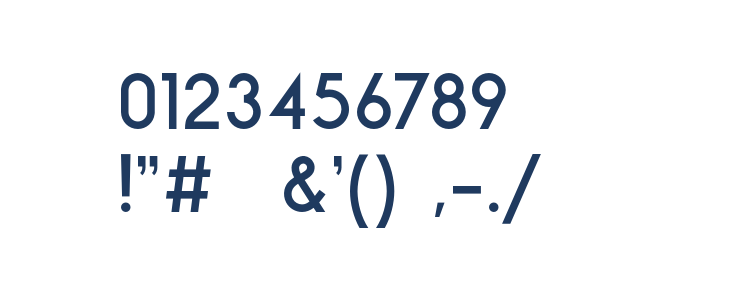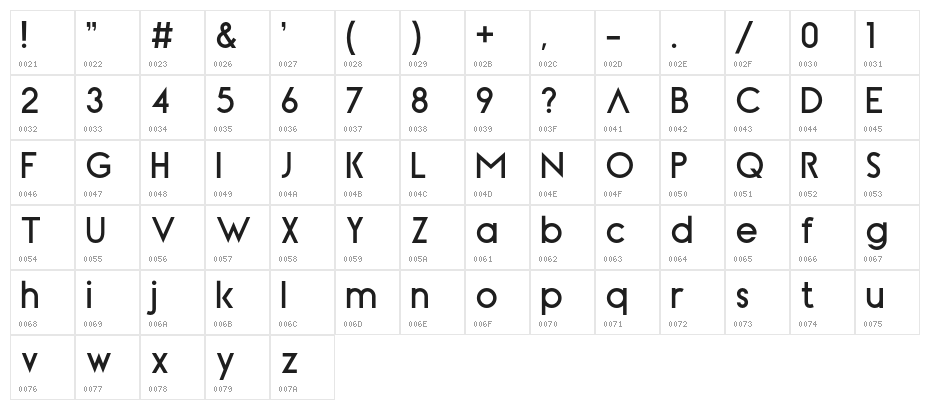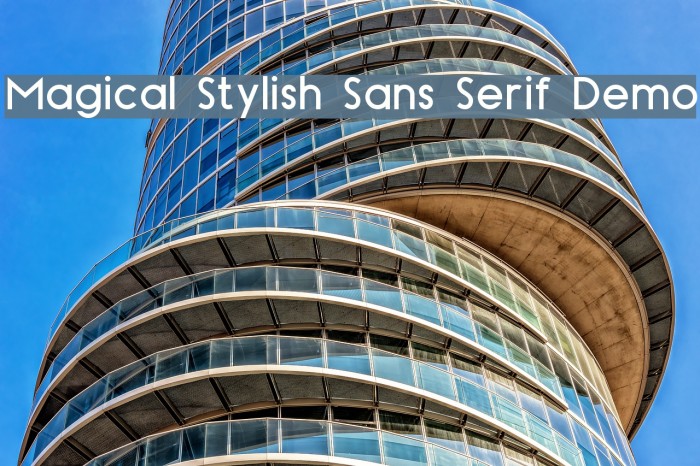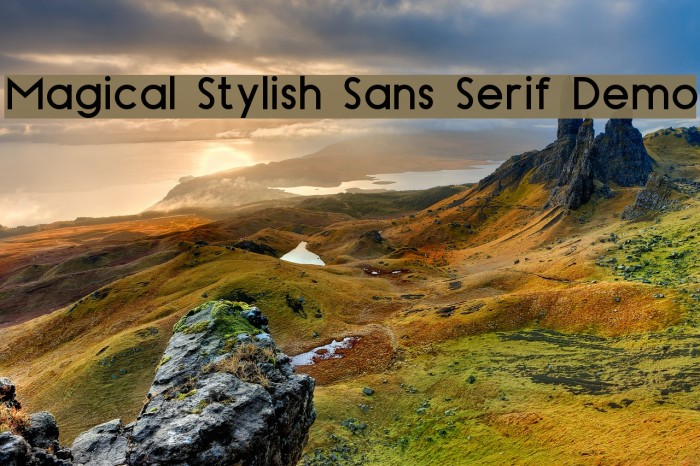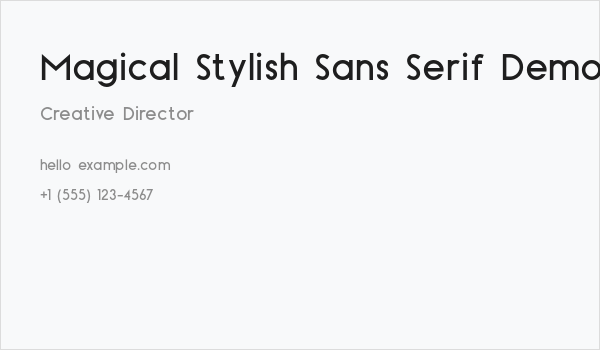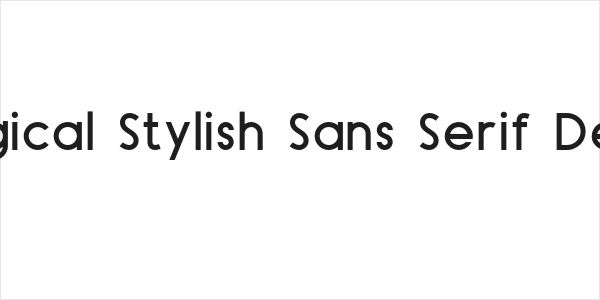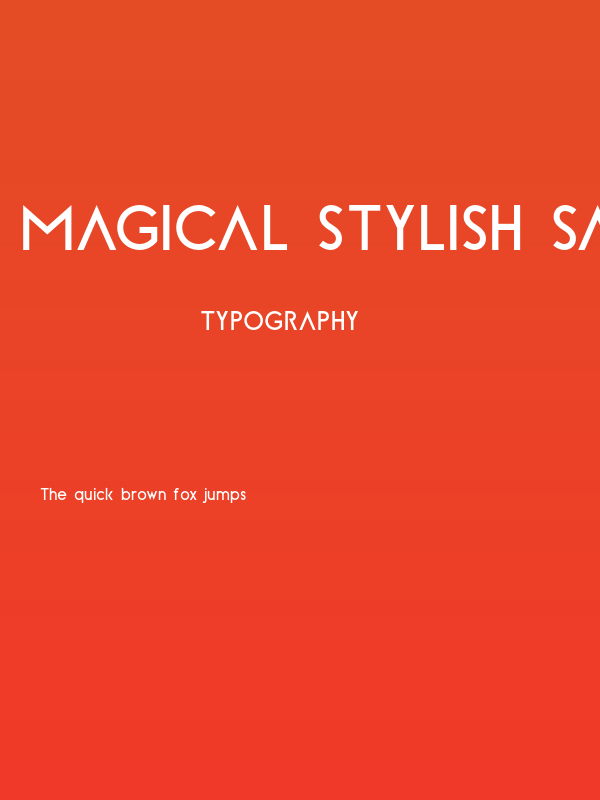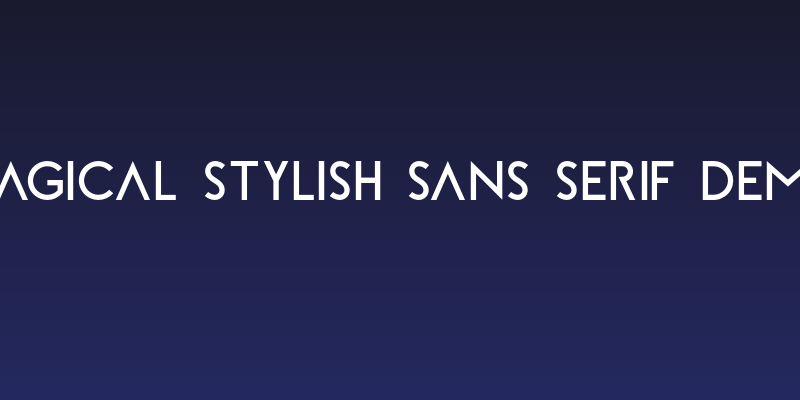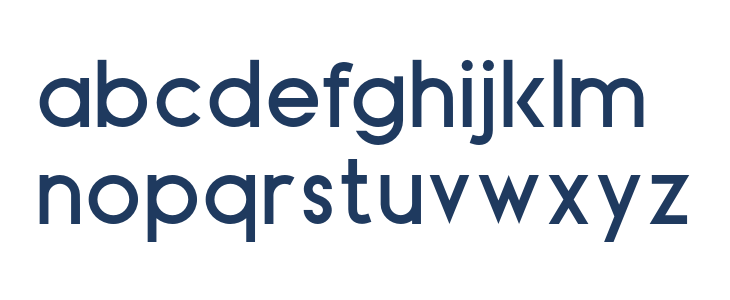
Magical Stylish Sans Serif Demo Font
Magical Stylish Sans Serif Demo Description
This font features a clean and modern sans-serif style, characterized by its geometric shapes and uniform stroke widths. The uppercase letters are bold and assertive, while the lowercase letters maintain a consistent and harmonious appearance. The numerals are clear and legible, making them suitable for various applications. Special characters are well-defined, adding to the font's versatility. The overall design is sleek and contemporary, making it ideal for projects that require a modern and professional look.
| Proposed Projects | Ideal for branding, advertising, web design, and editorial projects where a modern and clean aesthetic is desired. |